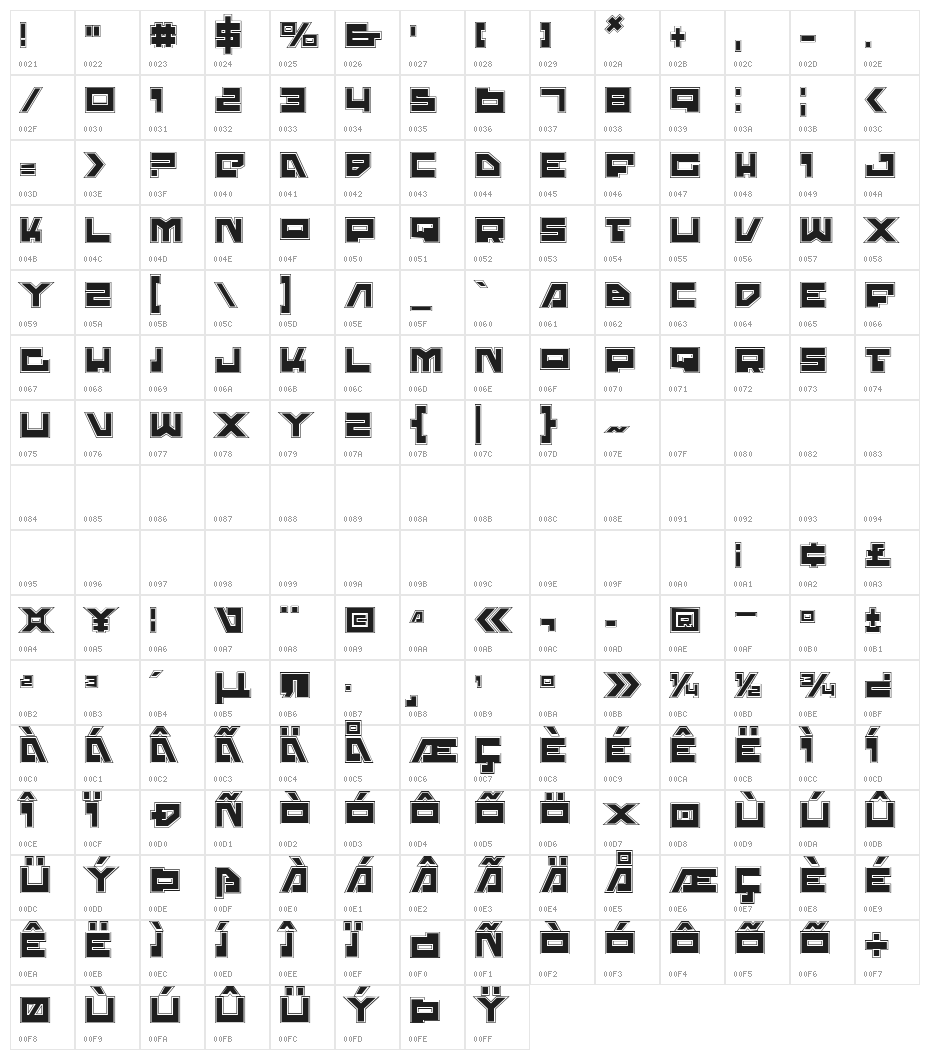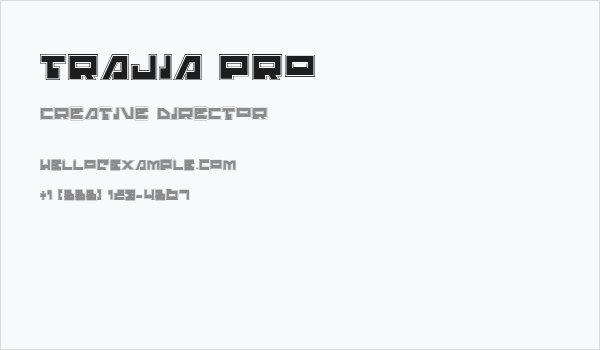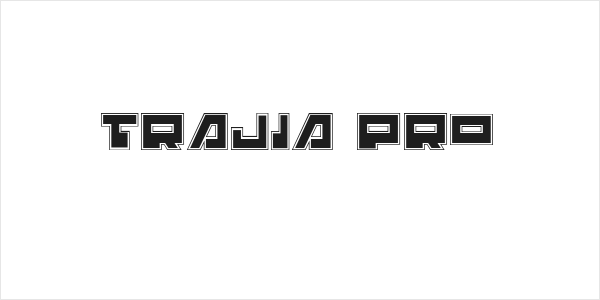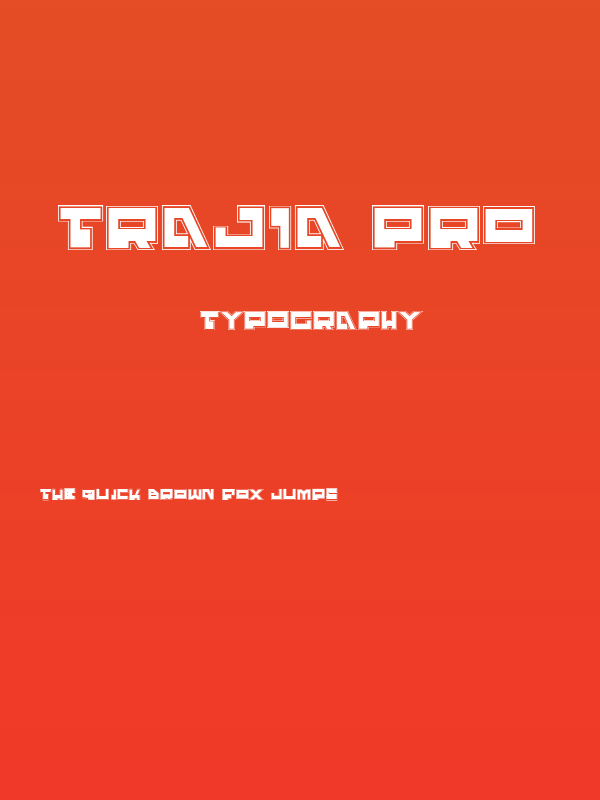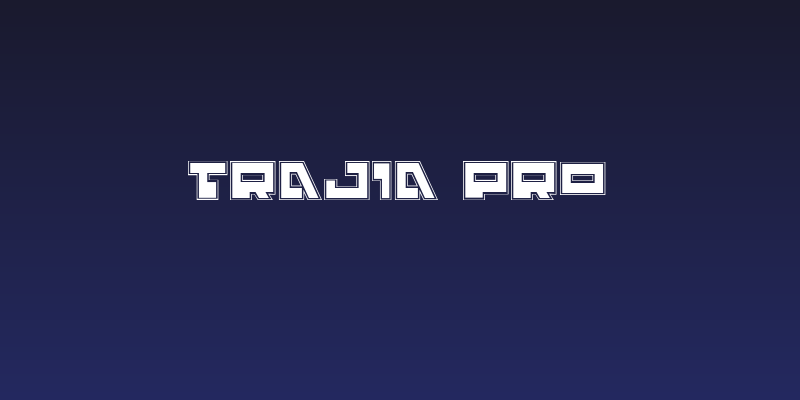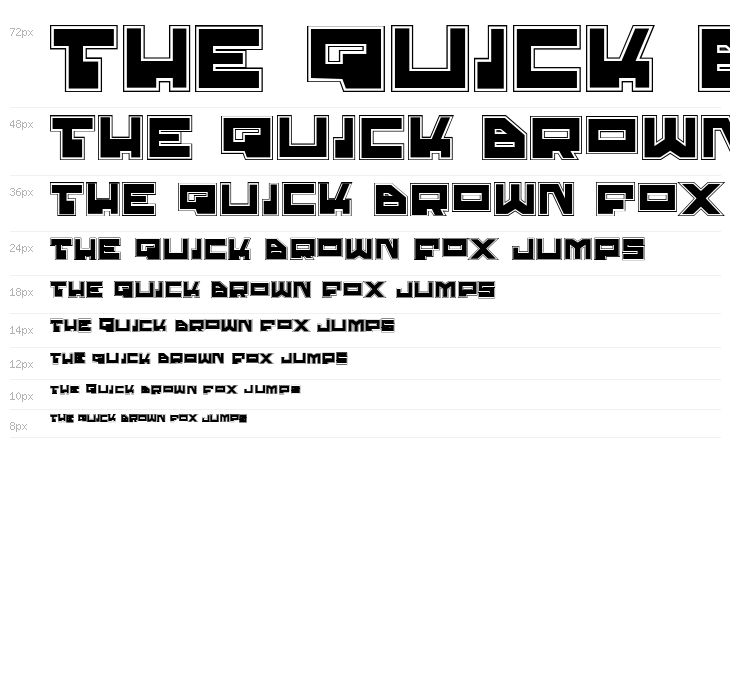
Trajia Pro Font
Trajia Pro Description
This font features a bold and futuristic design with a strong geometric structure. The characters are constructed with sharp angles and straight lines, giving them a distinct and modern appearance. The font is characterized by its thick outlines and solid fills, creating a striking contrast that enhances readability. The uppercase and lowercase letters maintain a consistent style, with the uppercase being more prominent and commanding. Numbers and special characters are designed to match the overall aesthetic, ensuring a cohesive look across all text elements. The font's unique style makes it ideal for projects that require a bold and attention-grabbing typeface.
| Overall Style | Futuristic, Modern |
| Proposed Projects | Ideal for sci-fi themed designs, video game titles, posters, and branding that requires a modern and bold look. |